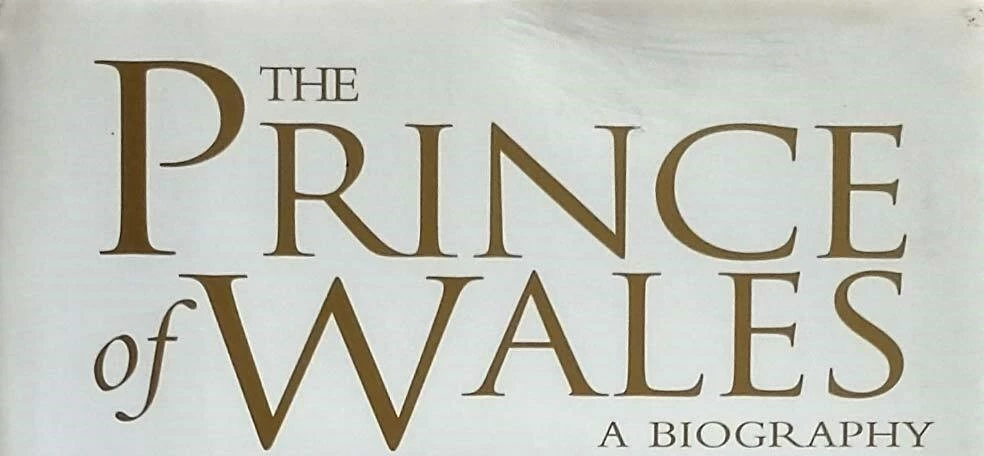
How to Find Royal, Regal, and/or Aristocratic Fonts?
How does one find fonts with this character? Typing in the terms doesn't help.
--Also, can anyone name the font in the attached photo?
Looks like Trajan
What is aristocratic about it?
The P looks like Palatino, but the font iself is not. So you might want to look for fonts similar to Palatino. Some search tools allow that. Did you already try Illustrator's Retype feature?